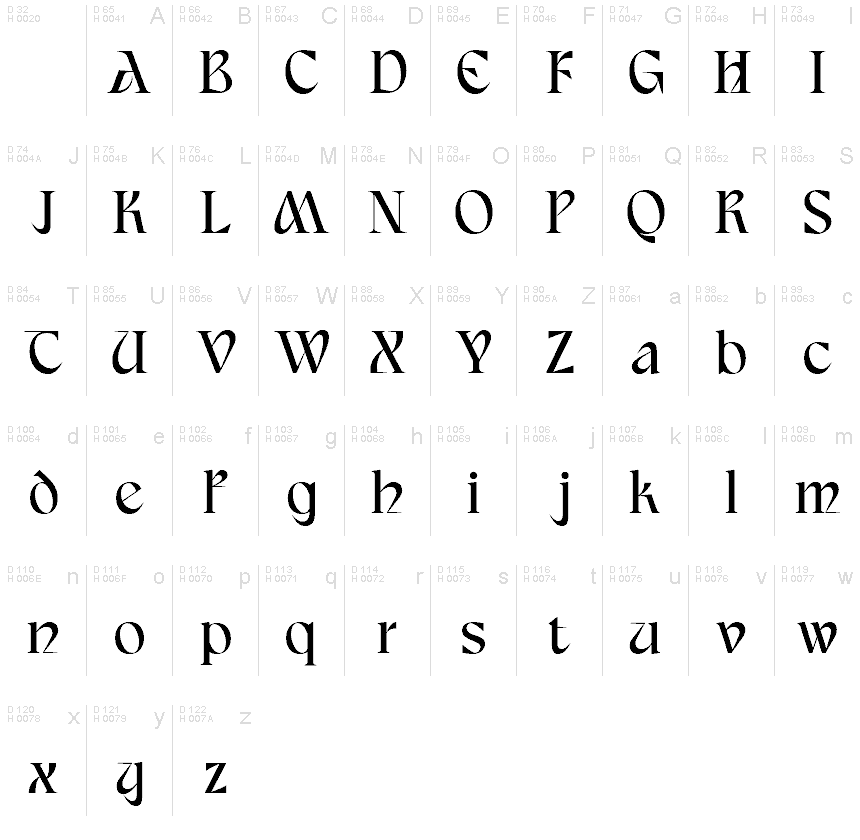
CS Valcon Regular Demo
CS Valcon font is designed by KnifeID to bring sophistication and a bit of an artistic flair to all your creations. The free vintage serif font has a modern aesthetic despite using classical elements like the elegant serifs and high contrast between strokes of each letter for a bold visual presence.
All your wedding invitations, greeting cards, business cards, logotype designs, and brand identities can benefit from this font. The same can be said for blogs titles, magazine headlines, posters, advertising banners, product labels or packaging etc.